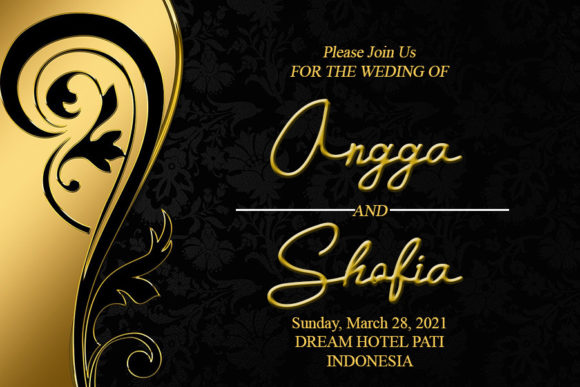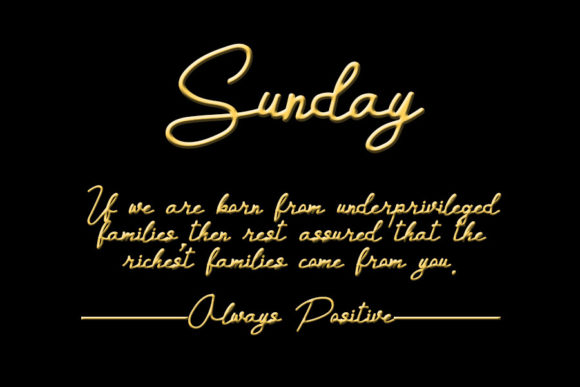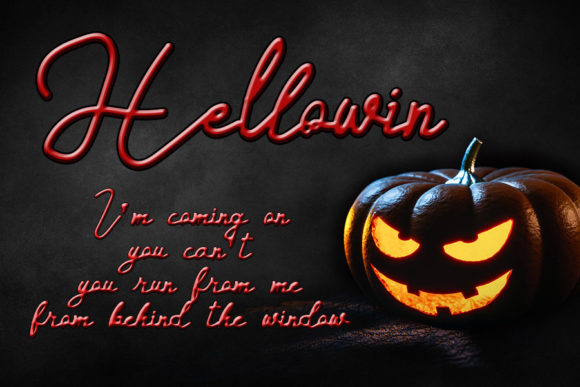
Introduction to Dictionary in Library Font
Dictionary in Library is a lovely and timeless handwritten font.
Key Features of Dictionary in Library Font
Why Choose Dictionary in Library Font?
Dictionary in Library Font offers exceptional quality and versatility, making it a valuable addition to your design toolkit. Whether you’re creating for personal projects or commercial use, Dictionary in Library Font delivers professional results.